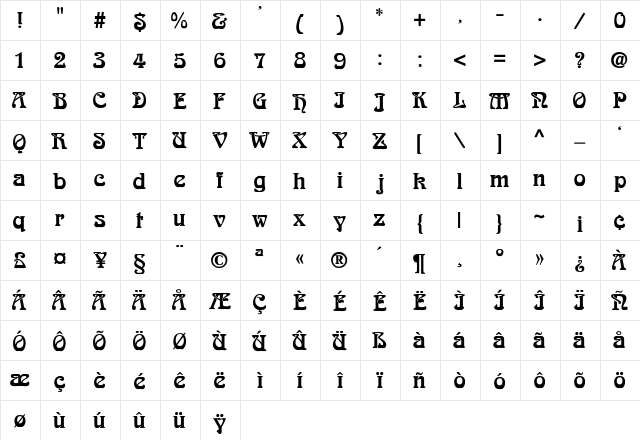
Reynolds-ExtraBold Regular
Design Context for Reynolds-ExtraBold Typeface
Reynolds-ExtraBold is a composed and adaptable typeface that performs quietly and consistently across a wide range of design contexts. The heavy weight commands attention and anchors typographic hierarchies.